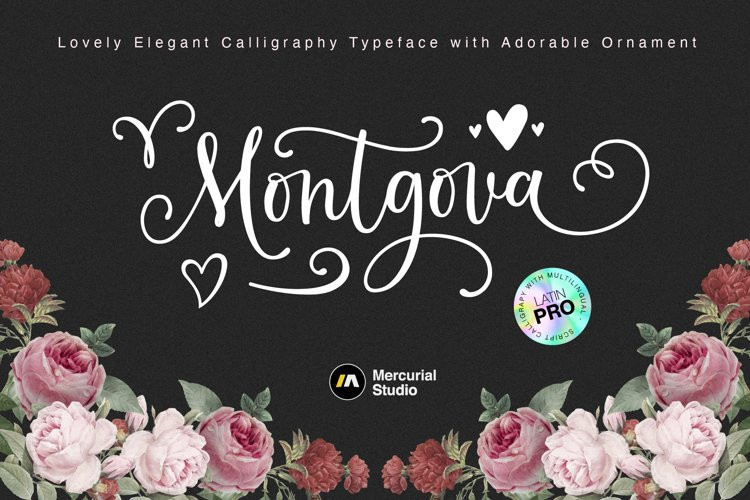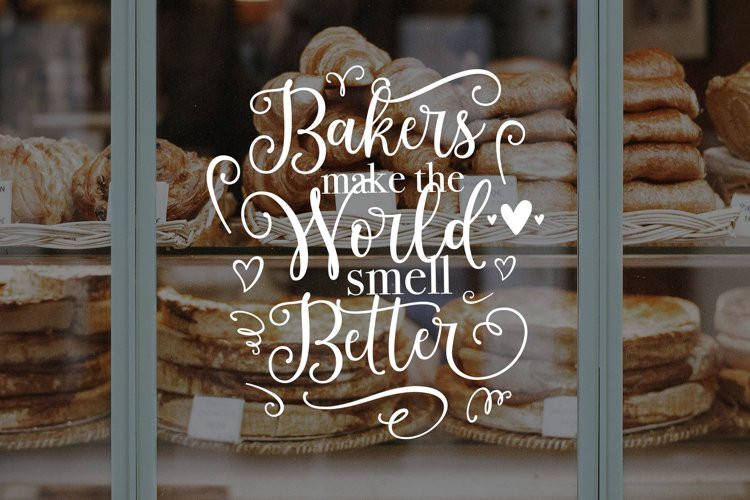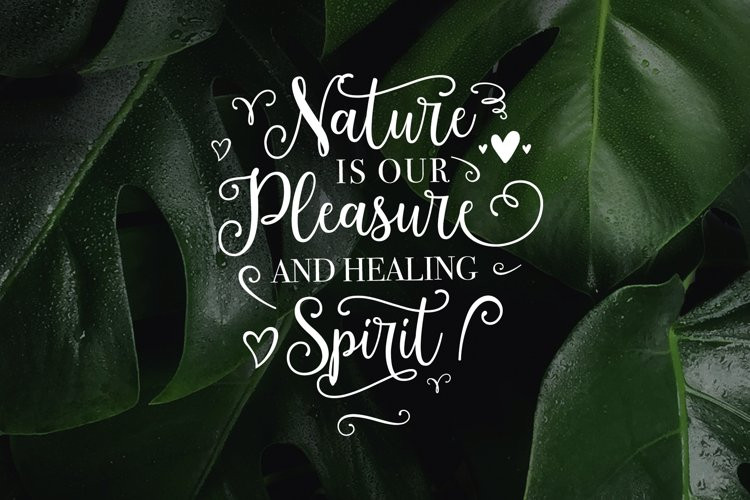
Montgova Font
Montgova FontSay hello to Montgova! a lovely elegant calligraphy with adorable ornaments. more than 120 included Opentype Stylish Alternate letters and ligatures, allow you to mould your type design any way you like:) It also includes a fancy little bonus ornaments font.
A delicate modern calligraphy script ideal for weddings, elegant branding like greeting cards, sublimation, wedding invitation, branding materials, business cards, quotes, posters, aheadings, signature, logos, t-shirt, letterhead, signage, lable, news, posters, badges and adding a lovely feel to your projects.